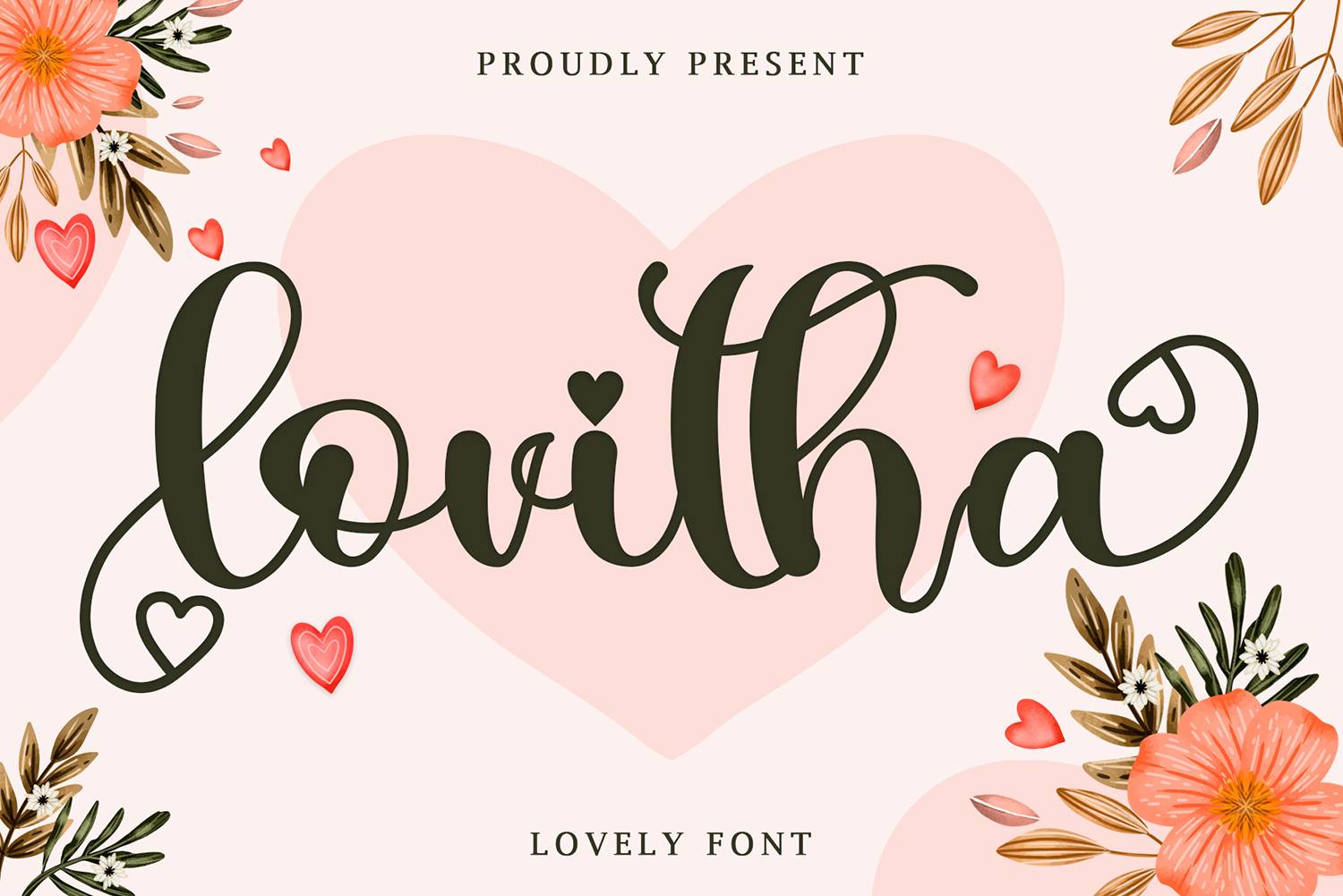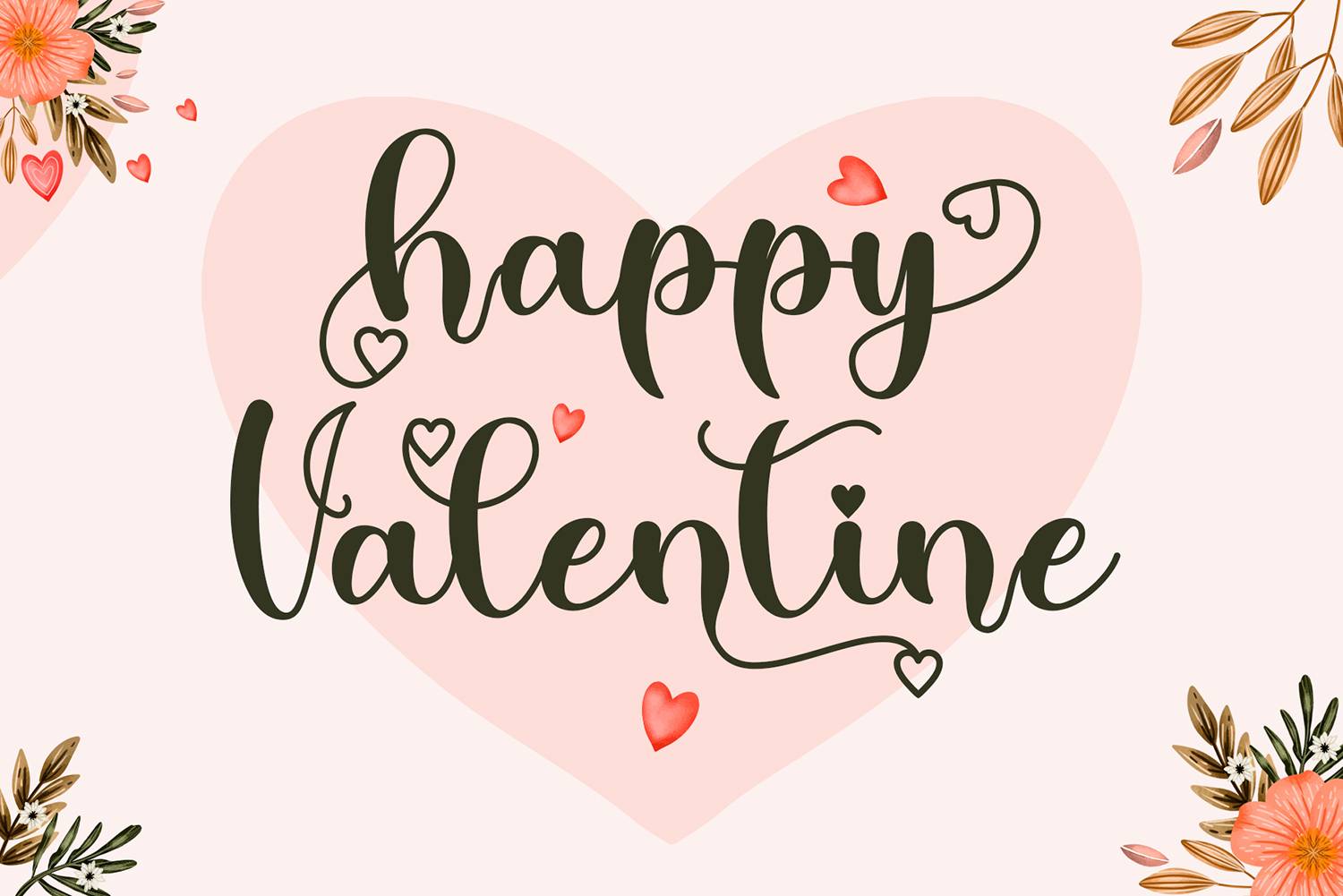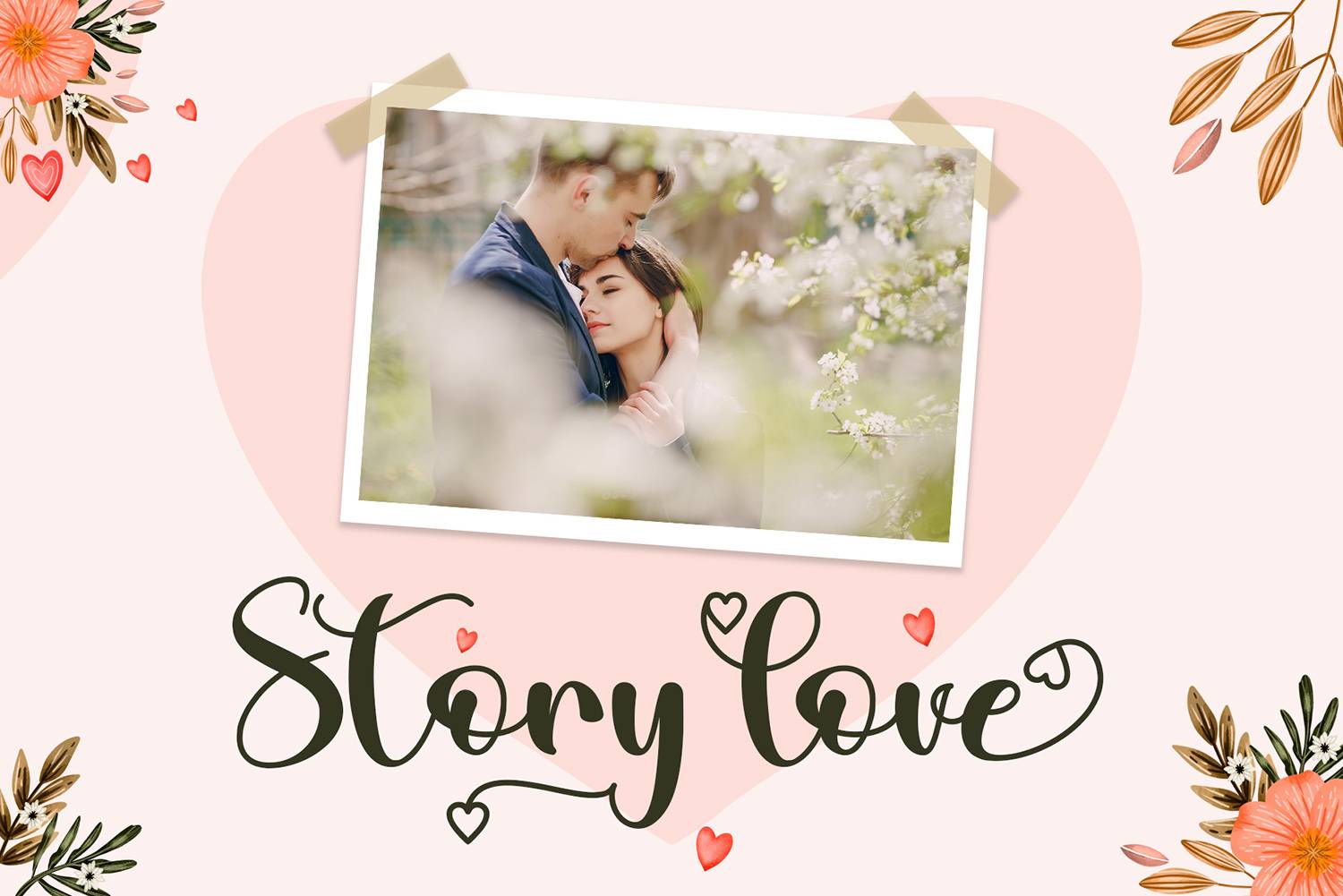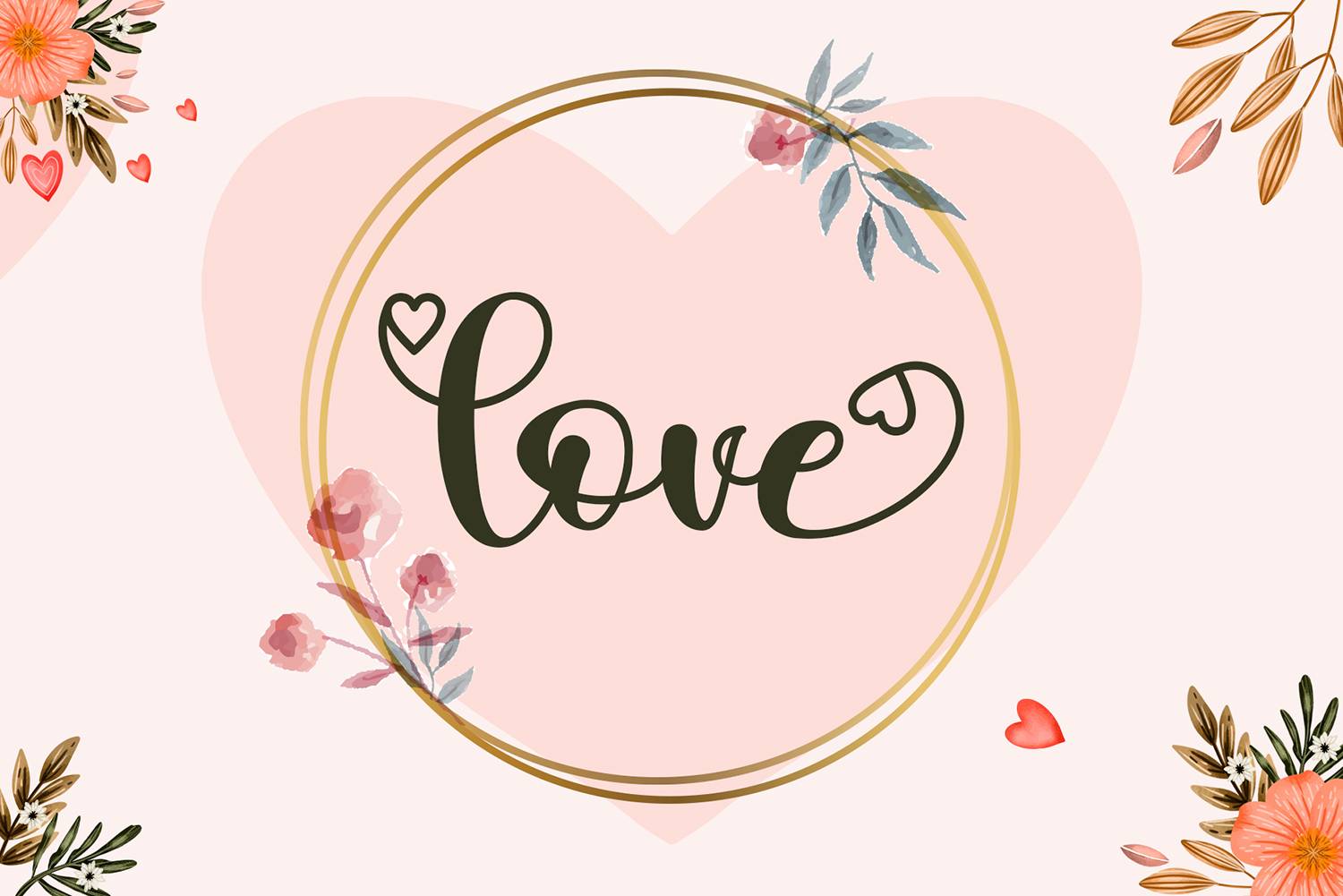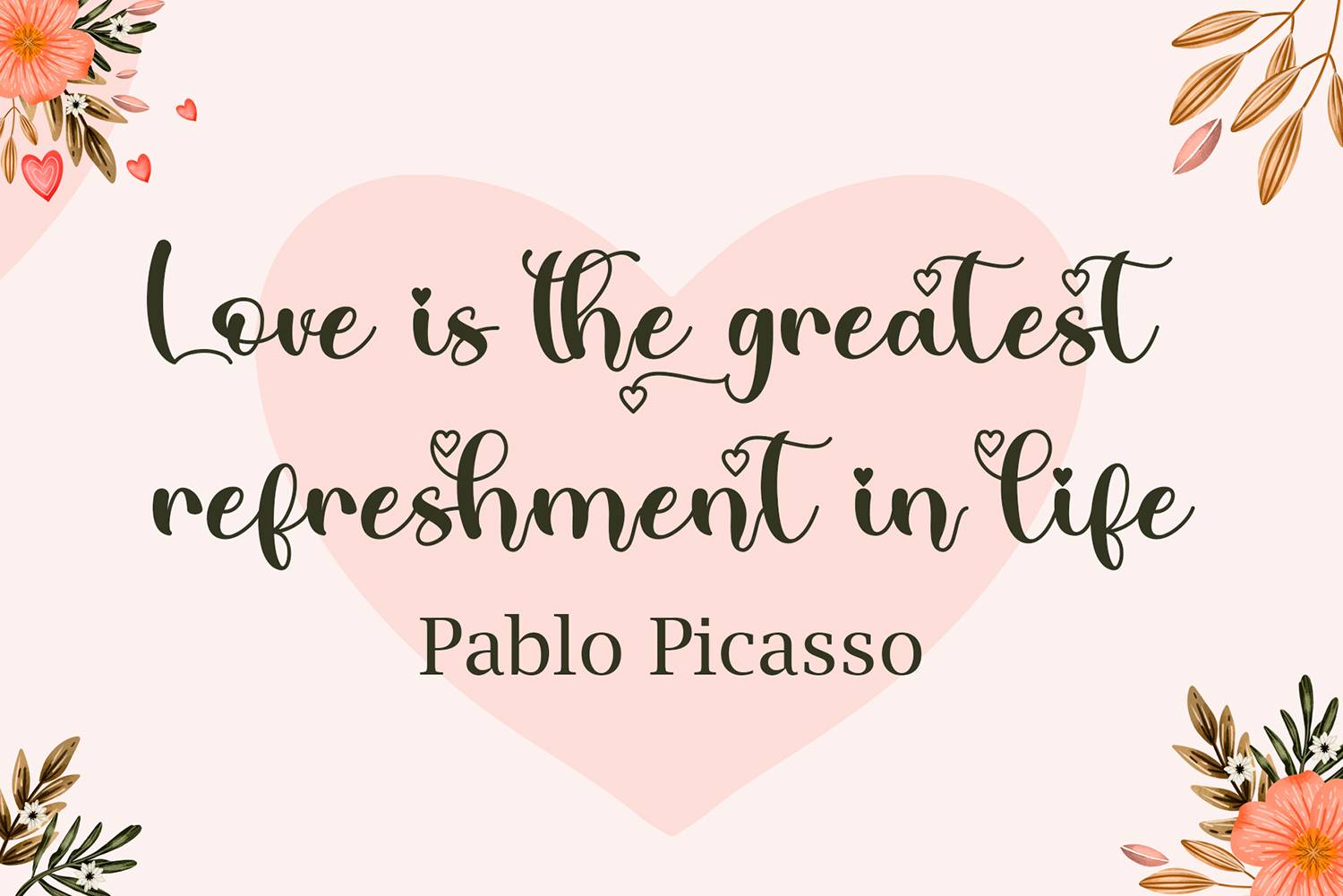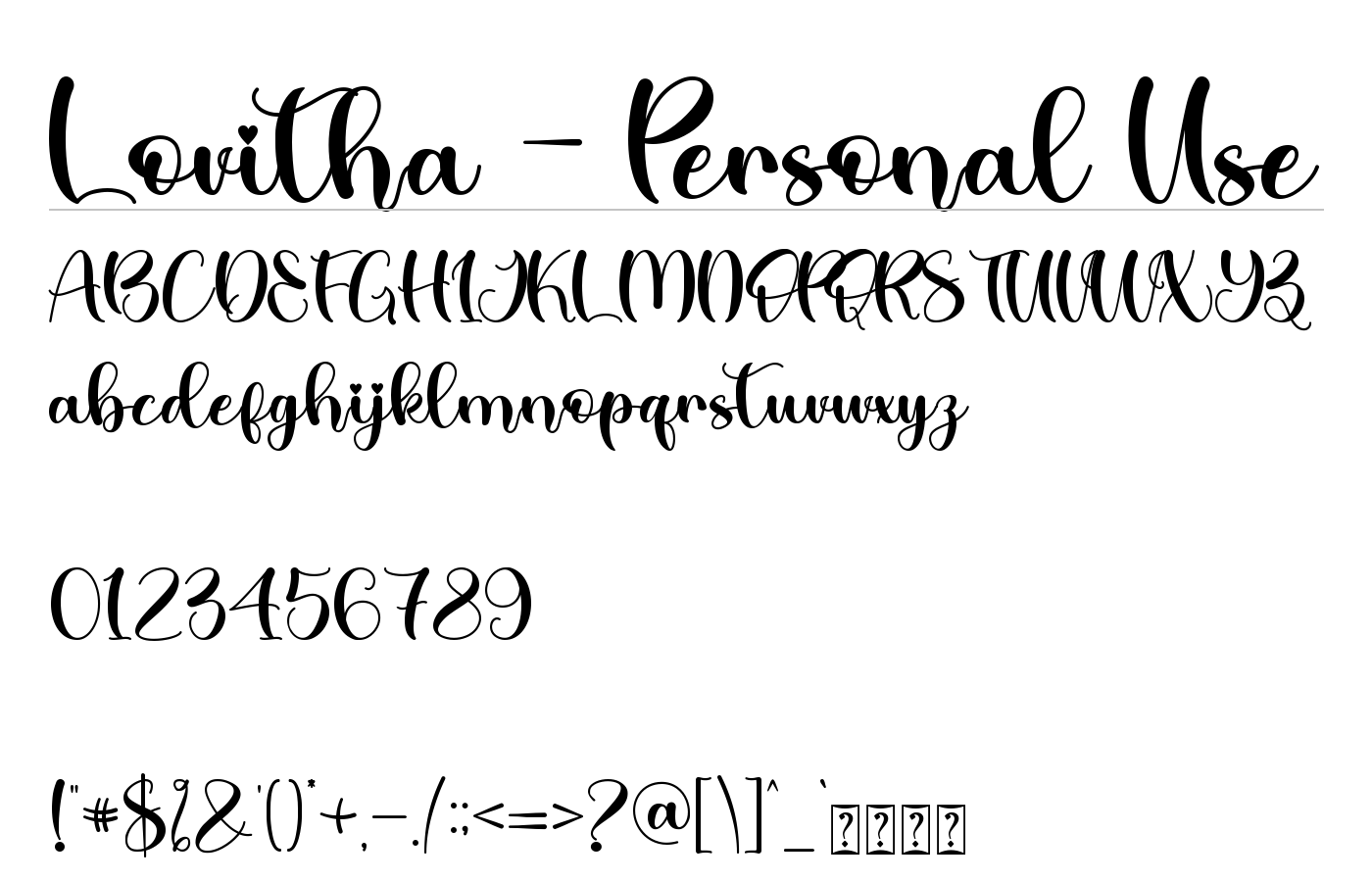
Lovitha is an elegant script font with a smooth, flowing style that combines playful charm with sophistication. Its varied stroke weight and delicate swashes make it ideal for designs seeking a personal, romantic, or handcrafted feel, such as invitations, branding, and feminine packaging. This font’s graceful curves and decorative details give it a warm and inviting personality perfect for expressive, stylish projects.
Lovitha Font
About Lovitha Font